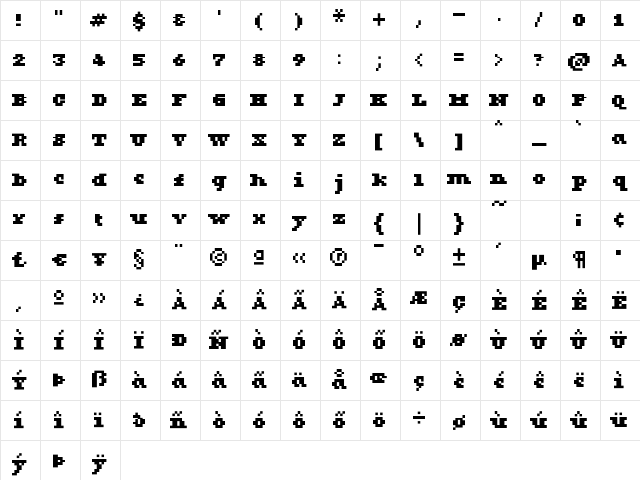
Complete KareFiveDotsSerif Bold glyph index. Displaying only characters natively supported by KareFiveDotsSerif Bold font.
KareFiveDotsSerif is rooted in pixel-grid construction, making it a natural fit for game UI, retro computing aesthetics, and digital nostalgia projects.
Pro Tip: Use KareFiveDotsSerif at sizes that align with its pixel grid for the sharpest rendering - scaling to non-integer multiples can introduce unwanted blur.